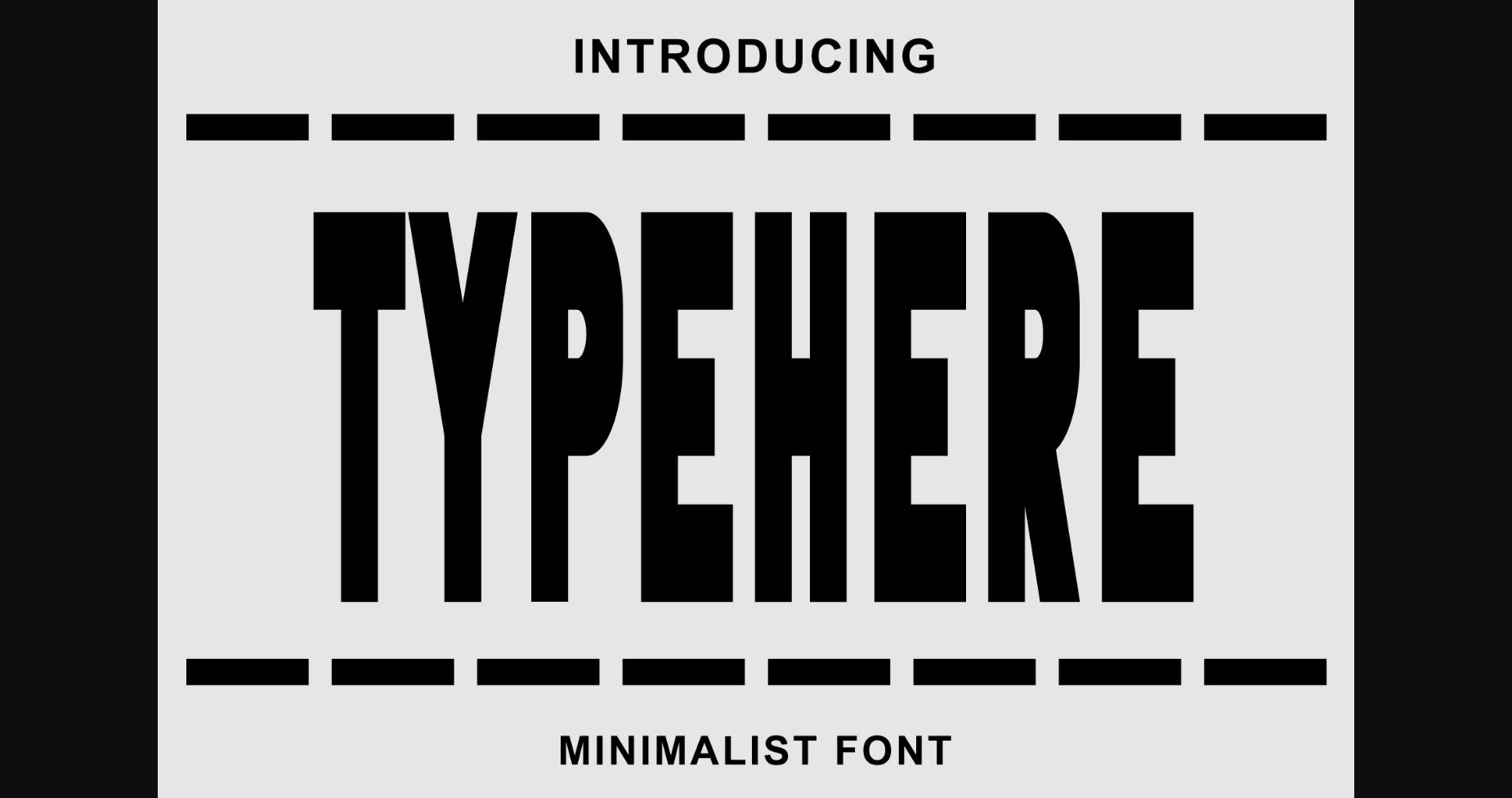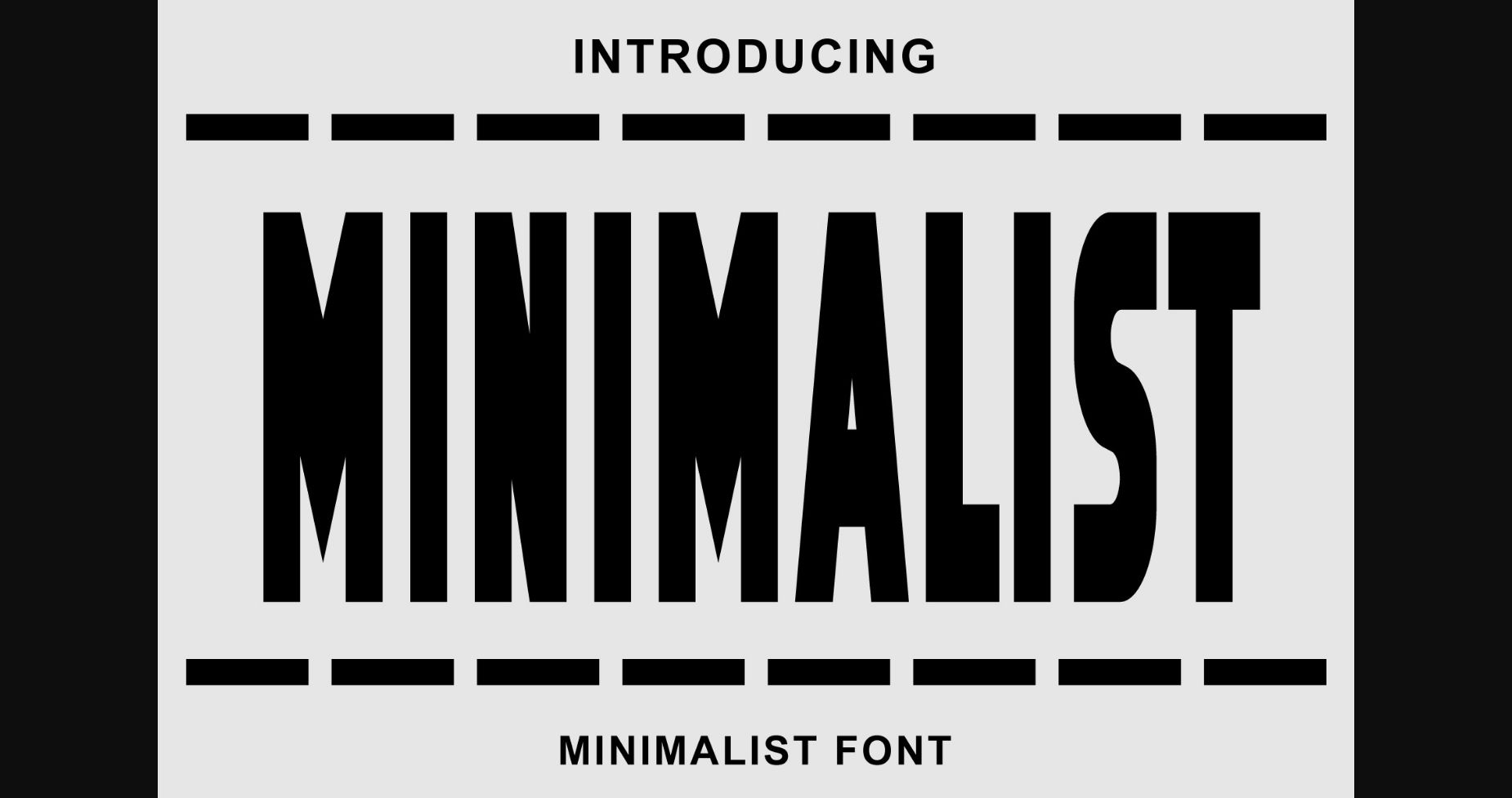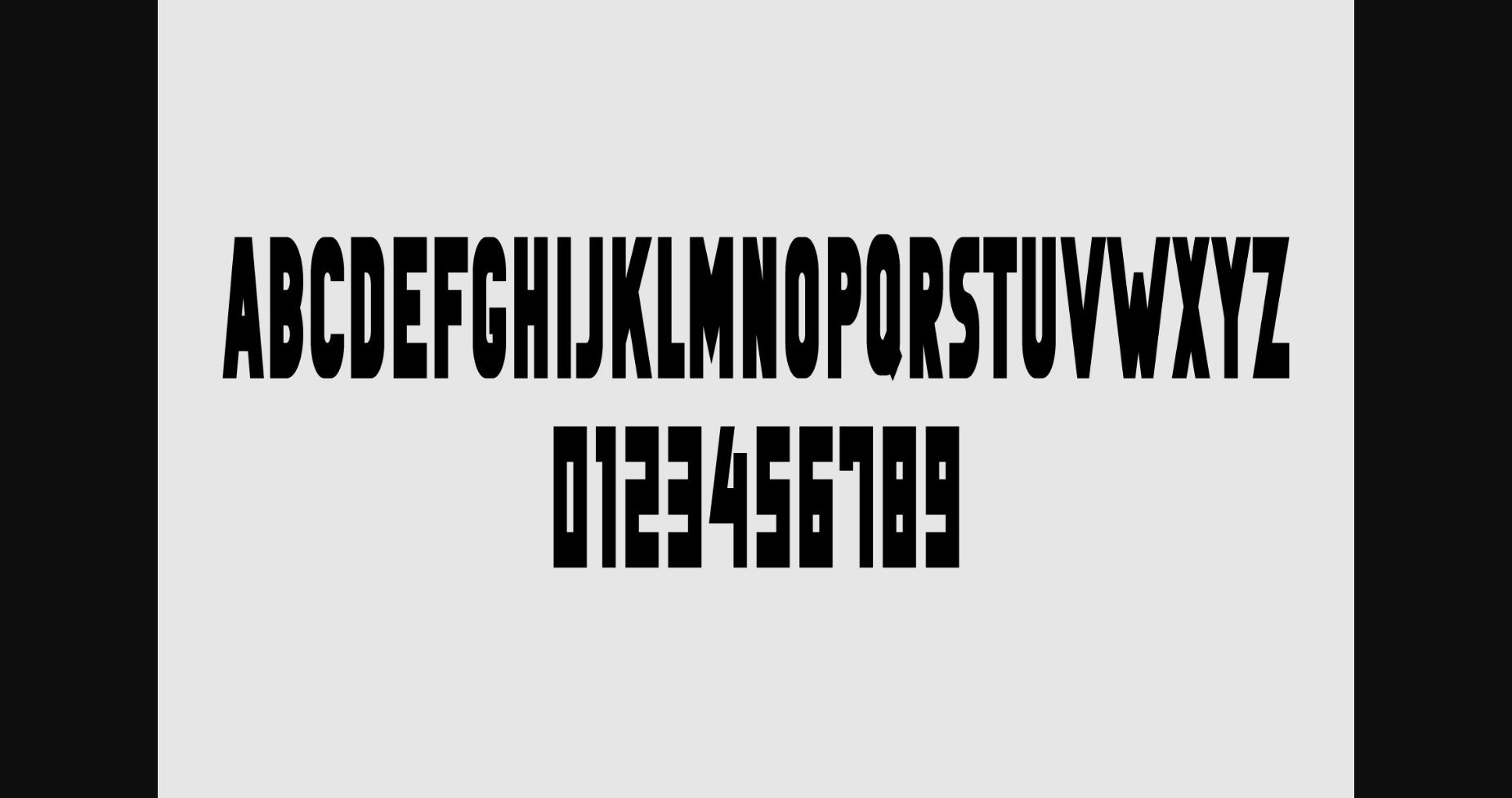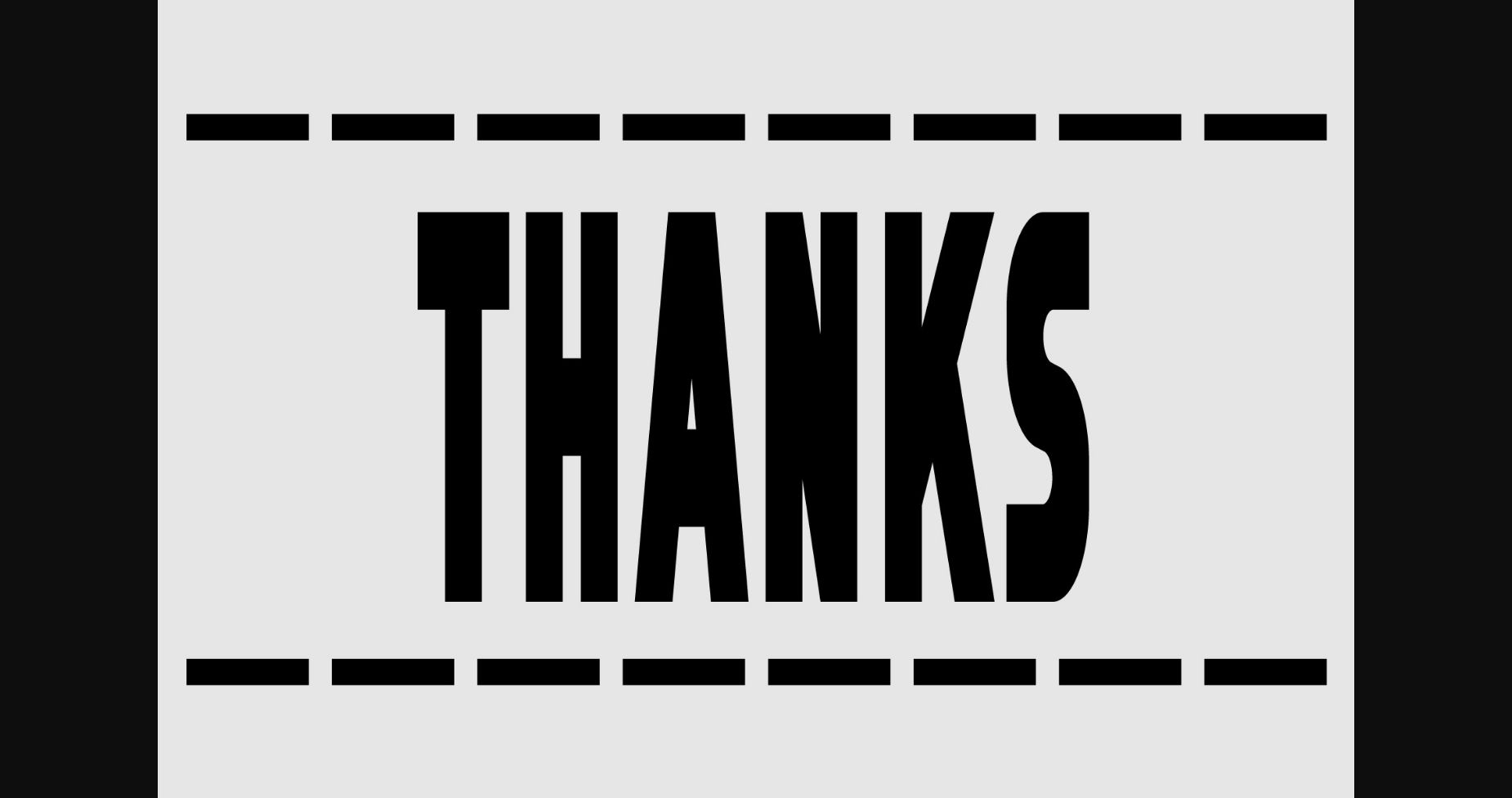
Typehere Font
About Typehere Font
Typehere is a bold and minimalistic sans serif font that will take any creative project to the next level! It looks simple and modern, and it suits almost any design.